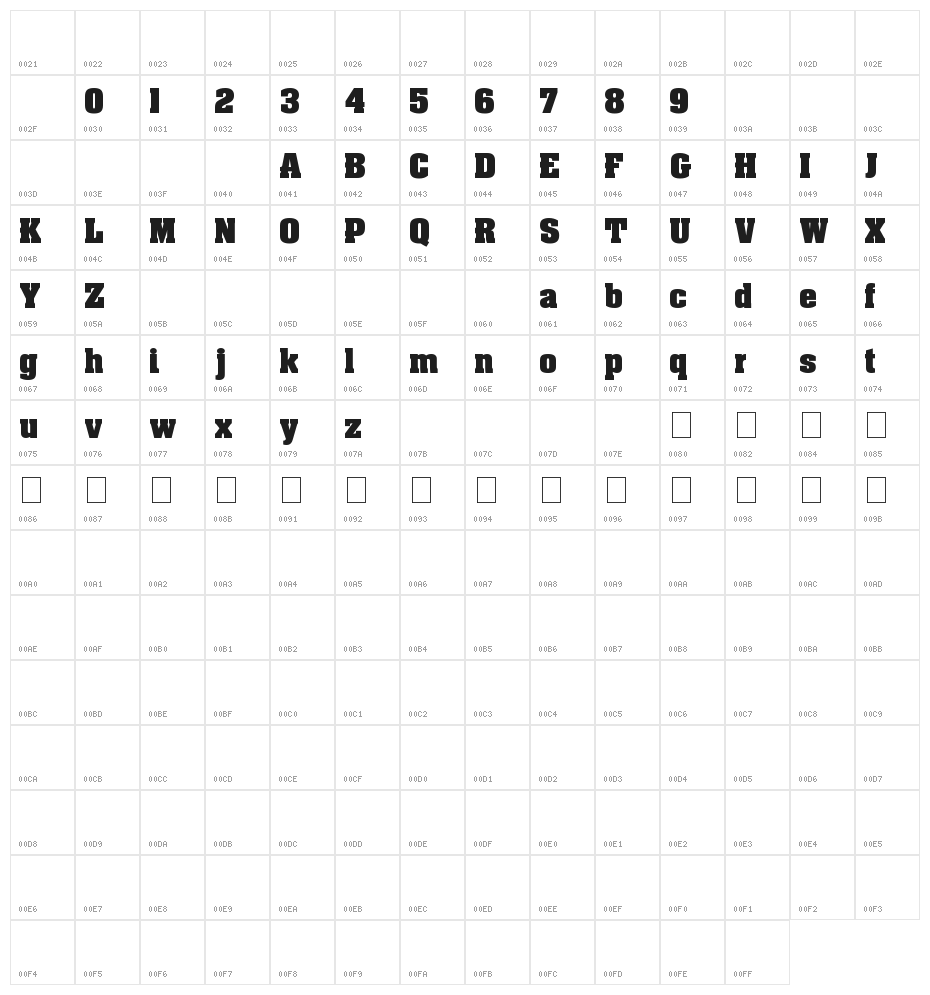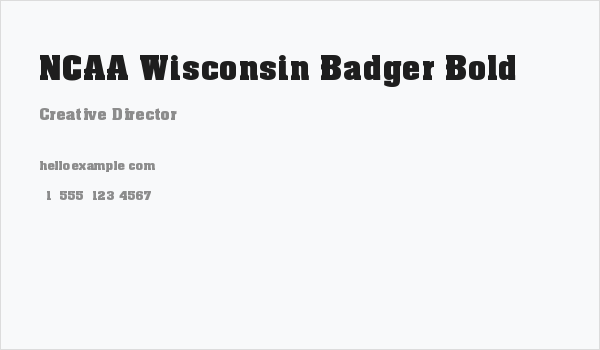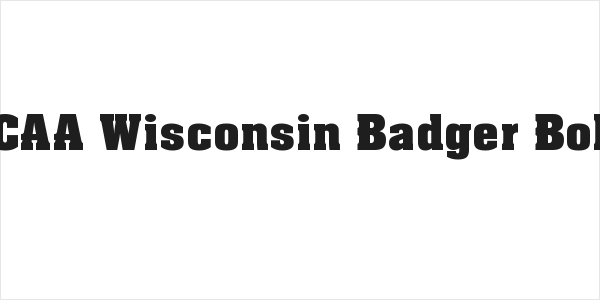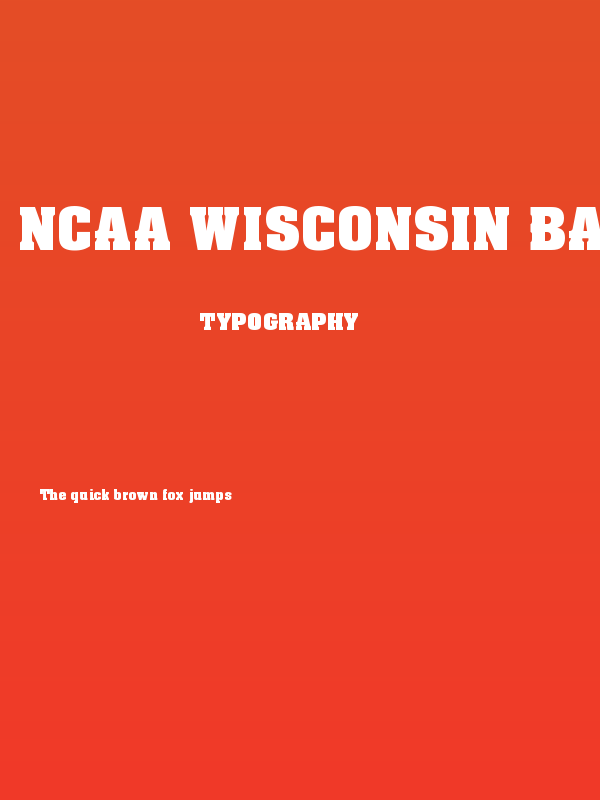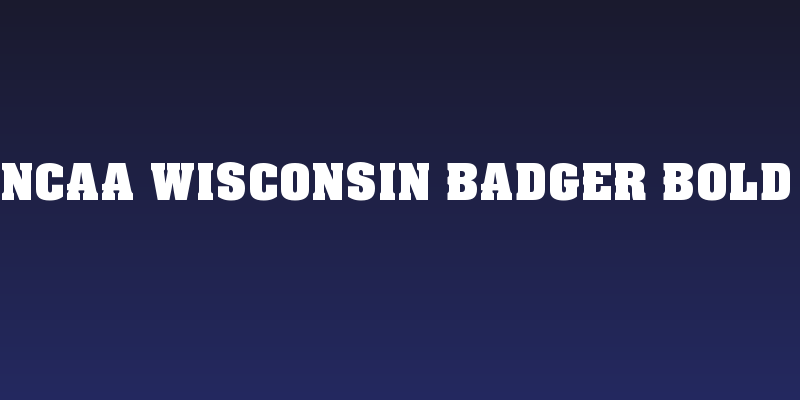
NCAA Wisconsin Badger Bold Font
NCAA Wisconsin Badger Bold Description
This bold and impactful font features strong, thick strokes with a classic slab serif style. The uppercase letters are particularly striking, with a robust presence that commands attention. The lowercase letters maintain a consistent weight, providing a harmonious balance across the typeface. Numbers are equally bold, ensuring readability and emphasis. The font's overall design is reminiscent of collegiate or sports branding, making it ideal for projects that require a sense of strength and tradition.
| Proposed Projects | Ideal for sports branding, collegiate merchandise, posters, and headlines that require a bold statement. |